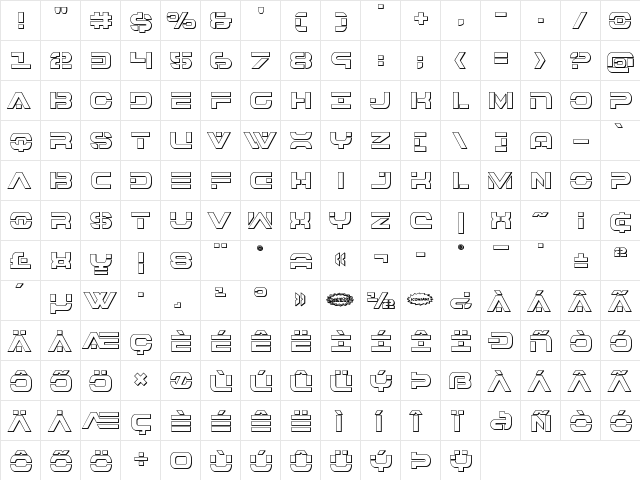
7th Service 3D Regular
Design Context for 7th Service 3D Typeface
7th Service 3D is a composed and adaptable typeface that performs quietly and consistently across a wide range of design contexts.